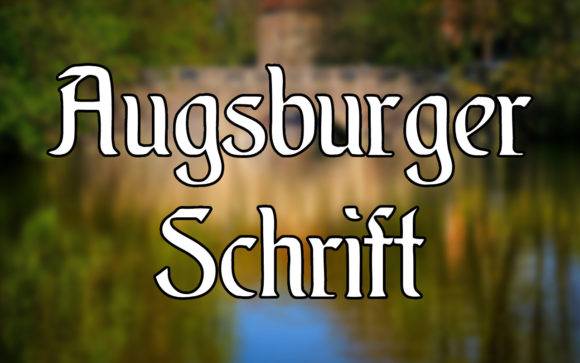
Augsburger Schrift Font for Cricut, Silhouette and Printable Designs
Augsburger Schrift is a blackletter-style font that blends historical elegance with modern usability. Designed for crafters and designers working with Cricut and Silhouette, it delivers sharp character detail suitable for precision cutting and clear print reproduction. As a font entity, it’s ideal for old-world themes, vintage aesthetics, and decorative displays. Its versatility makes it a perfect choice for both DIY enthusiasts and professional designers seeking to elevate their creative projects. Additionally, the bagie font for creative projects complements the Augsburger Schrift beautifully, adding a contemporary touch to traditional designs. Whether used in invitations, signage, or branding, this combination ensures a striking visual impact.
Its striking form makes it the perfect addition to printable quotes, branding for artisan goods, or thematic party decor with a historic twist. Whether you're designing invitations for a vintage-themed celebration or creating eye-catching labels for handmade products, the versatility of this typeface shines through. The balinera font for crafting enhances the aesthetic of any project, adding a touch of elegance and a hint of nostalgia. Its unique character ensures that each piece resonates with charm, making your creations truly stand out. In addition to the balinera font, the baltic storm font for designs offers a bold and dynamic alternative for those seeking a more contemporary flair. Its strong lines and modern aesthetic make it ideal for branding, promotional materials, and engaging social media graphics. Together, these fonts create a harmonious balance between tradition and innovation, allowing your projects to convey a timeless yet fresh appeal.
- Crafters creating heritage-style designs
- Event decorators needing Gothic typography
- Small businesses making vintage product labels
- Designers producing printable signage
- DIY enthusiasts building historical themes
- Vinyl decals with an old-world aesthetic
- Printable signs and invitations for themed events
- Custom product labels and artisan packaging
- Decorative wall art and monograms
- Medieval-style quotes and keepsakes
- Distinct Gothic styling for dramatic projects
- Perfect for cutting and printing use cases
- Rich visual texture in both small and large formats
- Great for thematic crafts and branding
| Feature | Augsburger Schrift | Vintage Font A | Vintage Font B |
| Style | Blackletter / Gothic | Art Deco serif | Western vintage slab |
| Best Uses | Themed signage, labels, decor | Invitations, menus, posters | T-shirt graphics, signs |